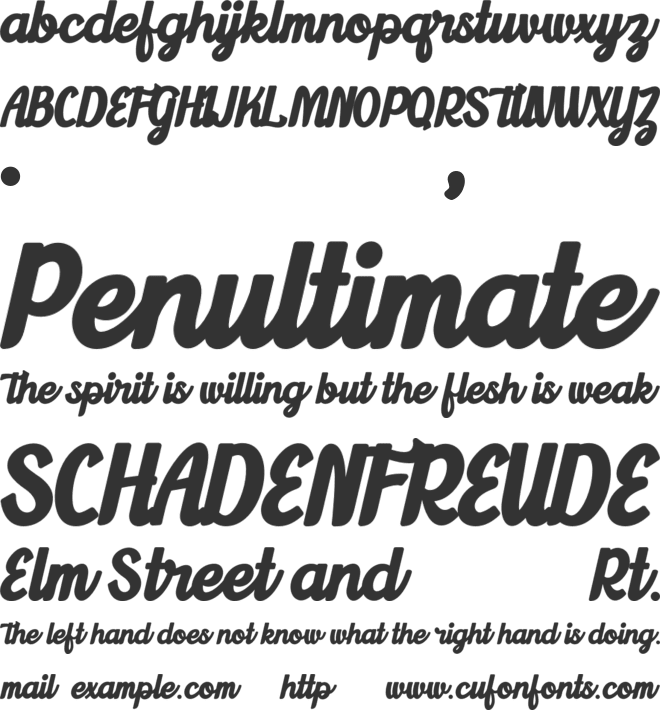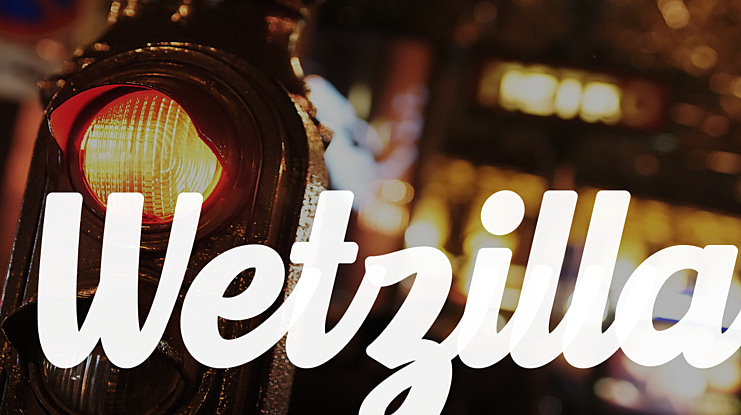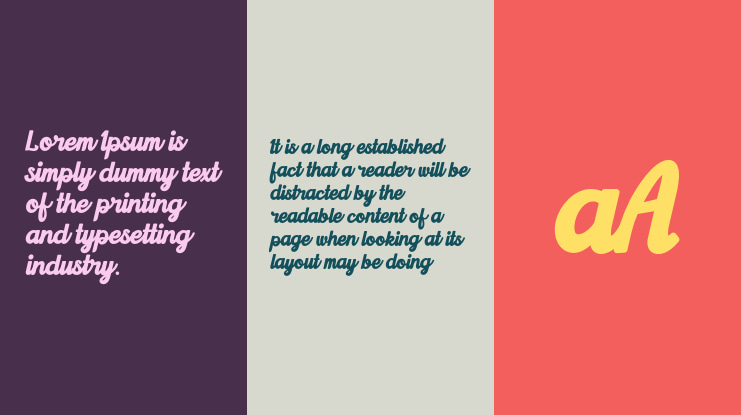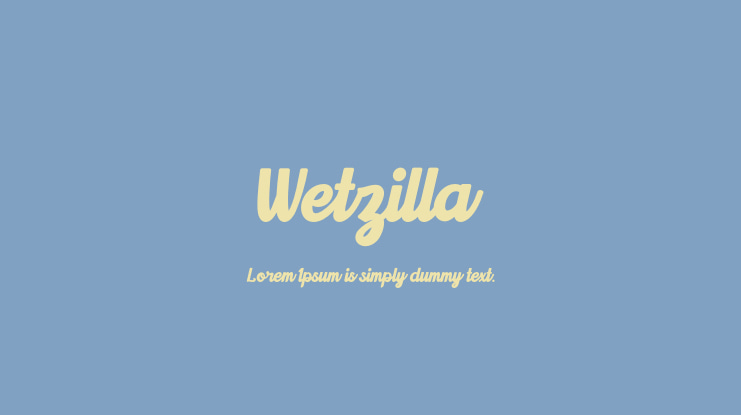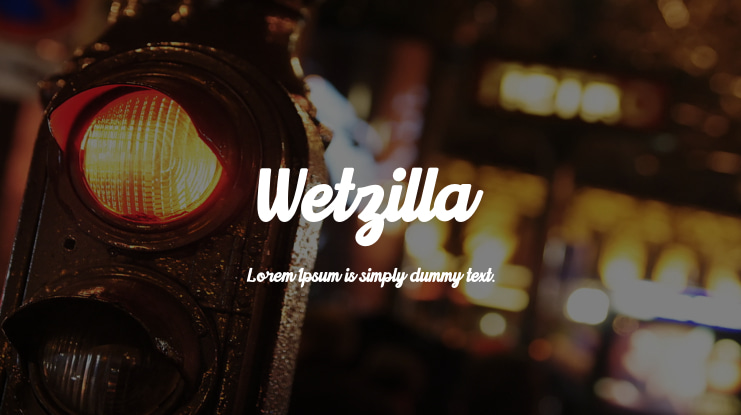
Wetzilla Font
Wetzilla Font is script font inspired by modern and ligature characters. It is especially designed for luxury, elegant, feminine projects, Wetzilla Font is perfect for creating modern and chic designs such as logos, packaging, editorials and more.